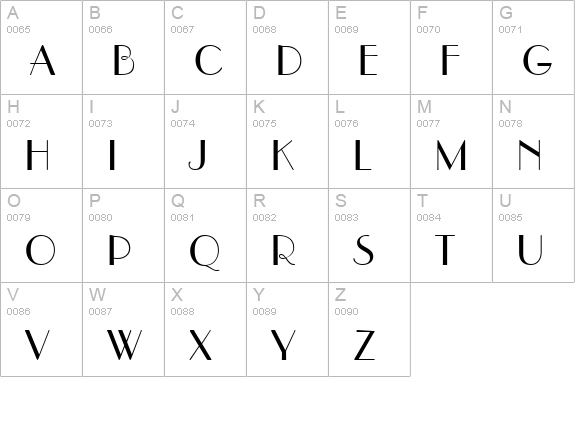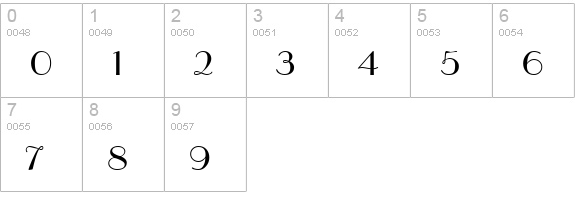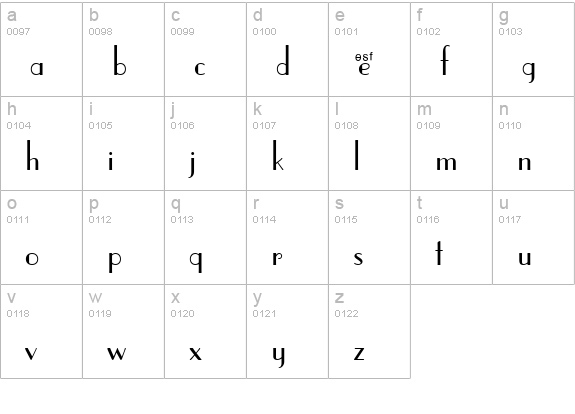
Hafnium Font Details
Hafnium font is a stunningly beautiful typeface that combines elegance with a touch of modernity. Its sleek and sophisticated design is sure to elevate any project, whether it be a logo, branding, or a stylish headline. The sharp edges and clean lines of Hafnium give it a contemporary feel, making it perfect for those seeking a font that stands out from the crowd. But what sets Hafnium font apart is not just its remarkable aesthetics, but also its accessibility. This font is available for free, allowing designers and creatives to unleash their artistic vision without any limitations. With Hafnium font, you no longer have to compromise on quality or budget constraints. To download Hafnium font, simply visit FontsMarket.com, a reputable online source for a wide range of high-quality fonts. The website offers a user-friendly platform where you can browse and access an extensive collection of fonts, including Hafnium. Freely available to download, this font is just a few clicks away from enhancing your design projects. Whether you're a professional designer or a creative enthusiast, Hafnium font is an invaluable asset to have in your arsenal. Its versatility allows it to adapt to various design styles, ensuring that it can be seamlessly incorporated into any project. So why wait? Discover the beauty and convenience of Hafnium font today, and take your designs to new heights of excellence.